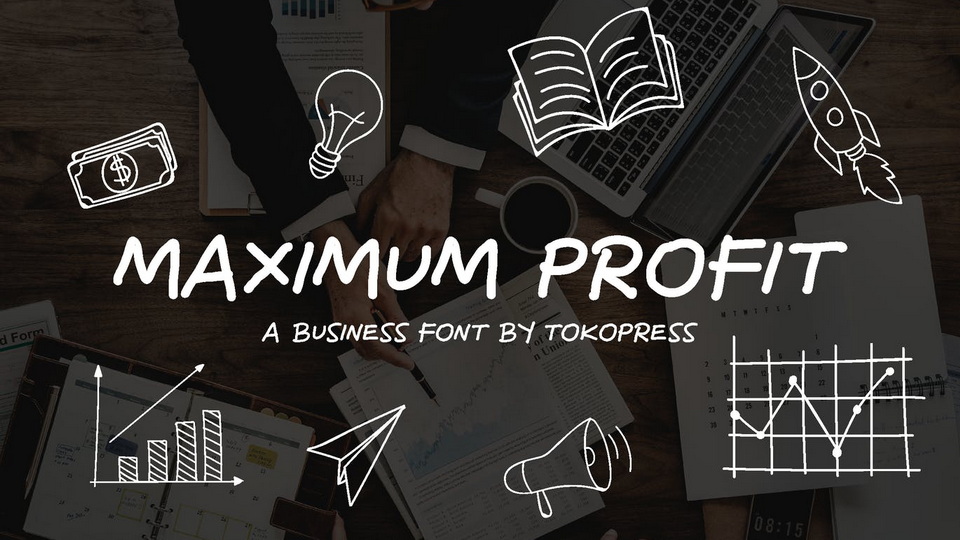
Download Maximum Profit font, a business sketch typeface. Whenever you need a business explainer presentation, you will need this one. The shape is so business and will enhance your presentation to the next level.